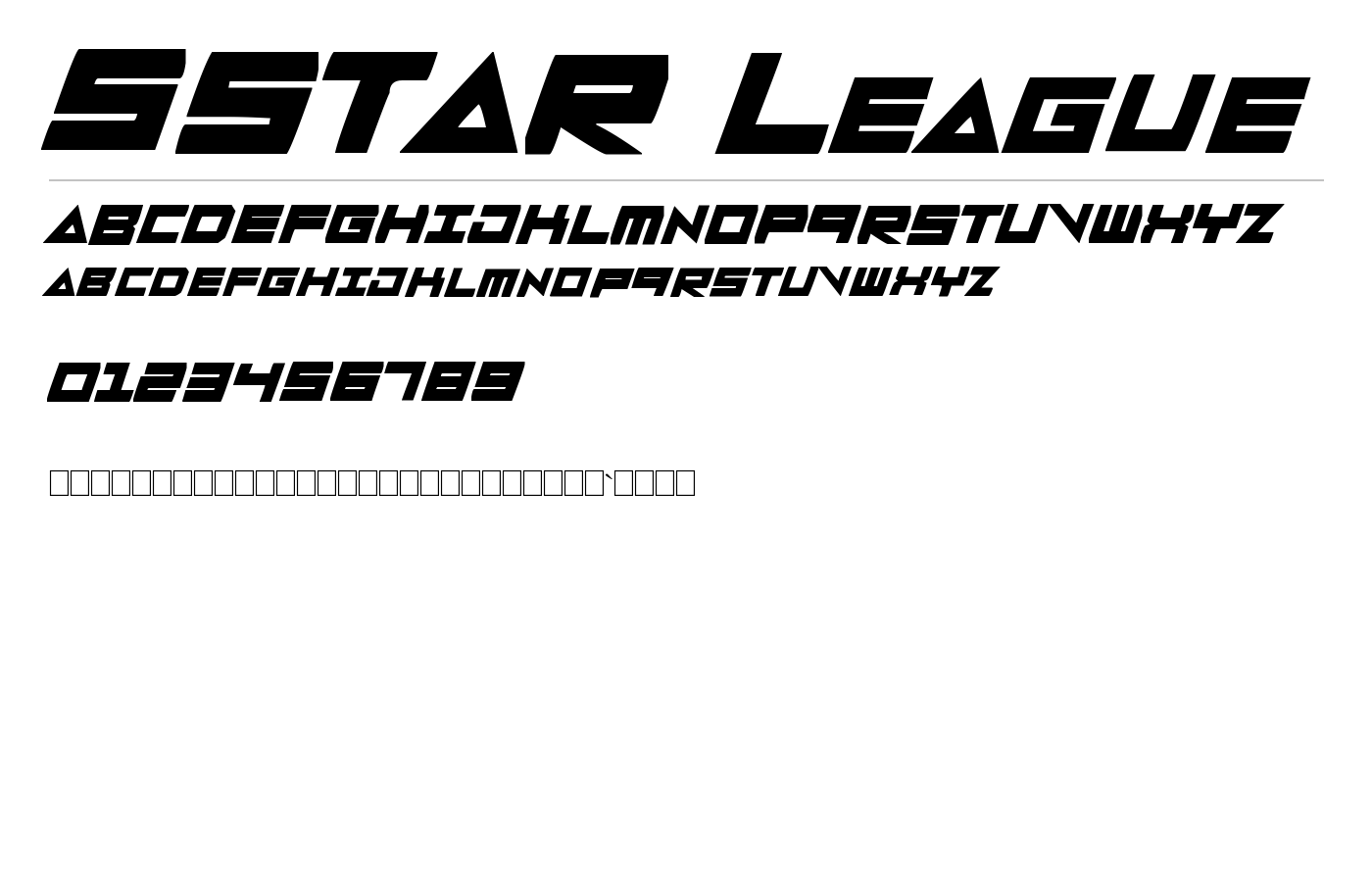
5STAR League is a bold, condensed sans serif font with a futuristic and sporty vibe. Its sharp angles, geometric forms, and strong forward slant create a dynamic and energetic look perfect for brands and designs related to technology, gaming, or athletics. This font shines in headlines, logos, and posters where a powerful, modern impression is needed.
5STAR League Font